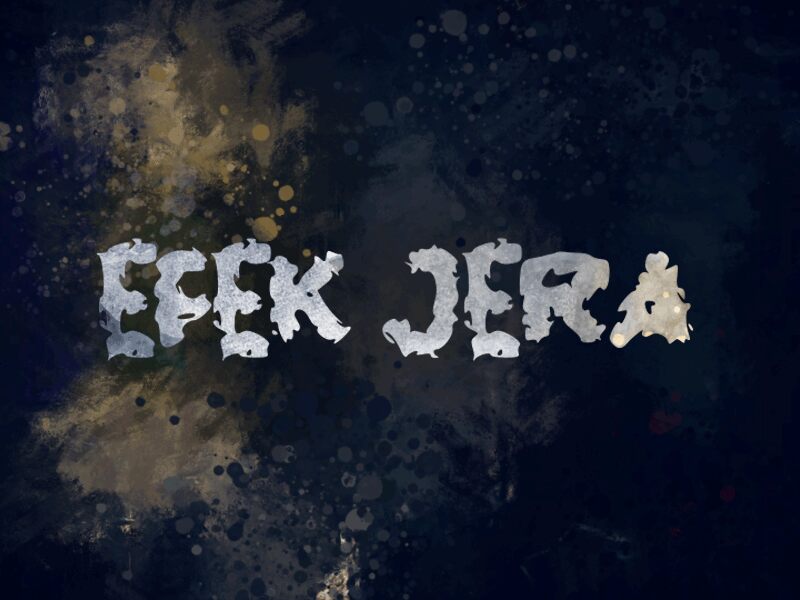
EFEK JERA
EFEK JERA is a bold, distorted display font designed by Wahyu Eka Prasetya. Its unique style makes it ideal for creating eye-catching titles or logos that stand out. It can also be used to add a touch of quirkiness to any project, from branding designs to posters.